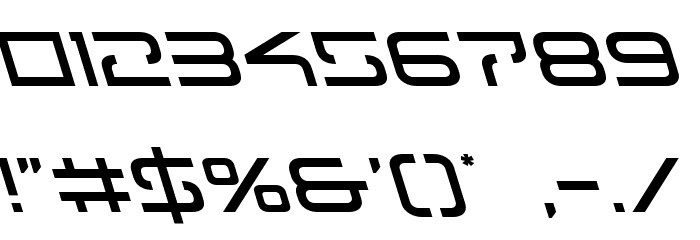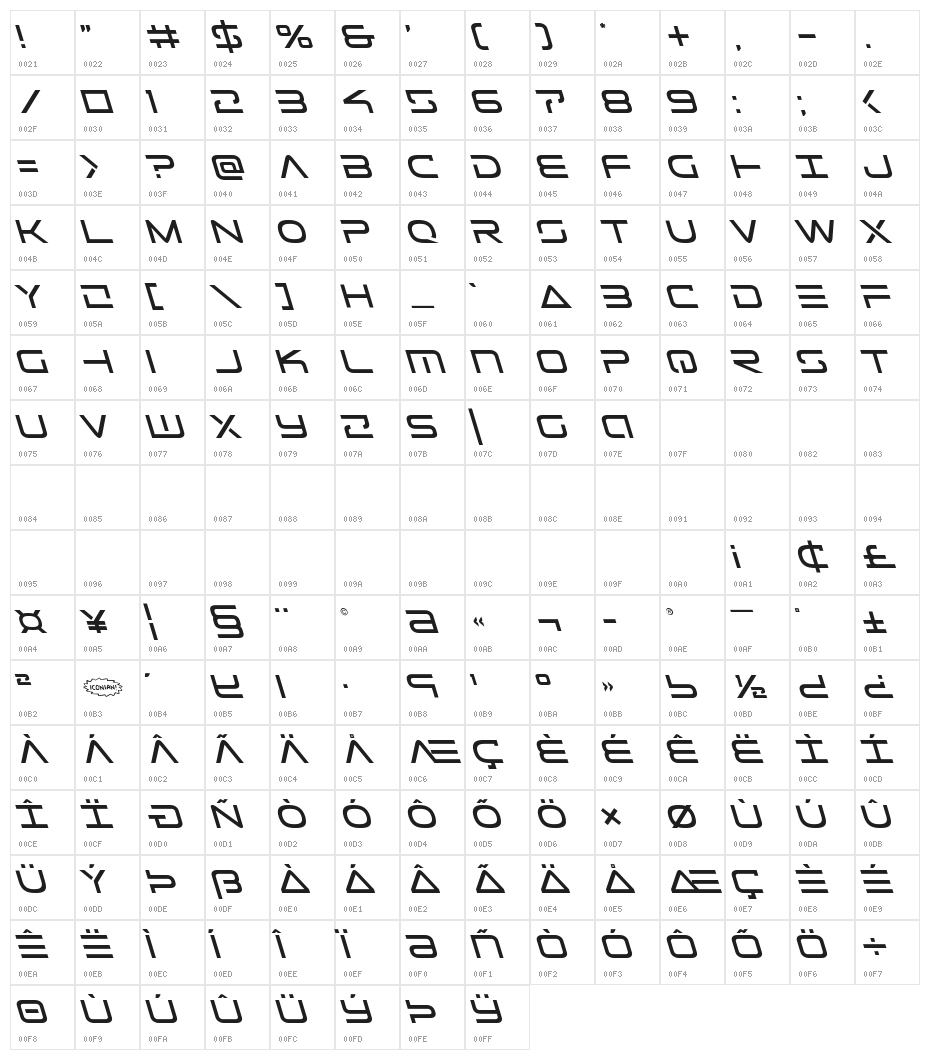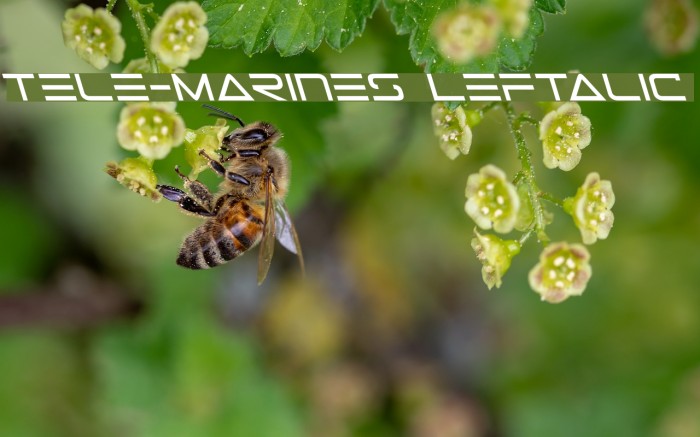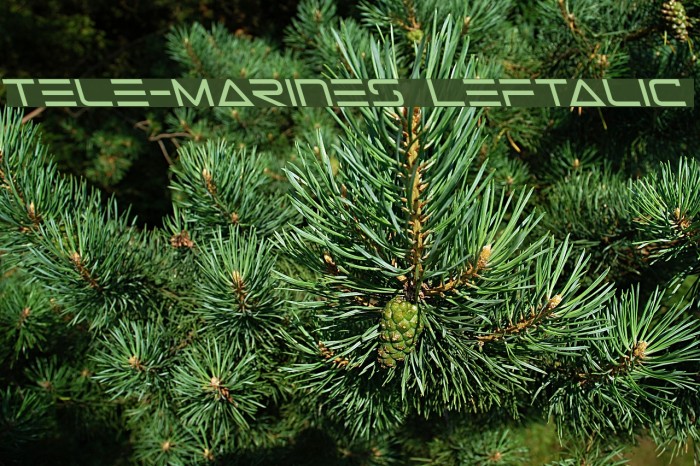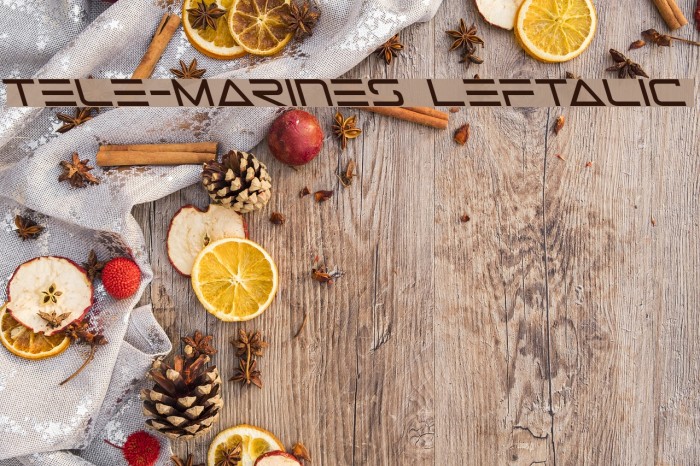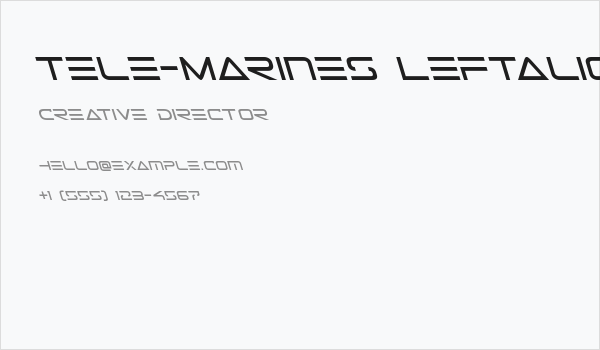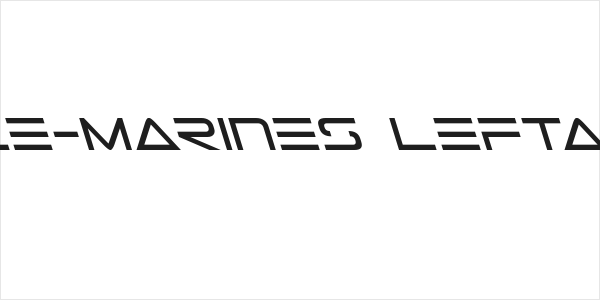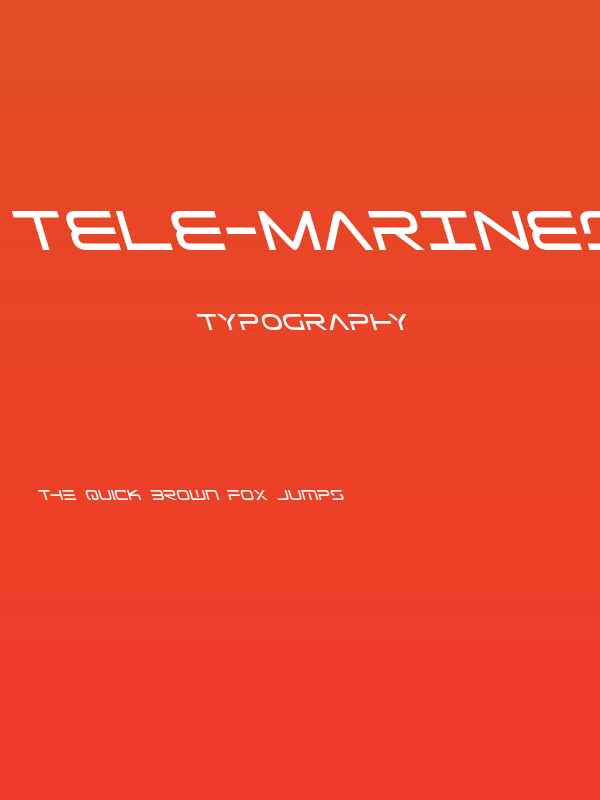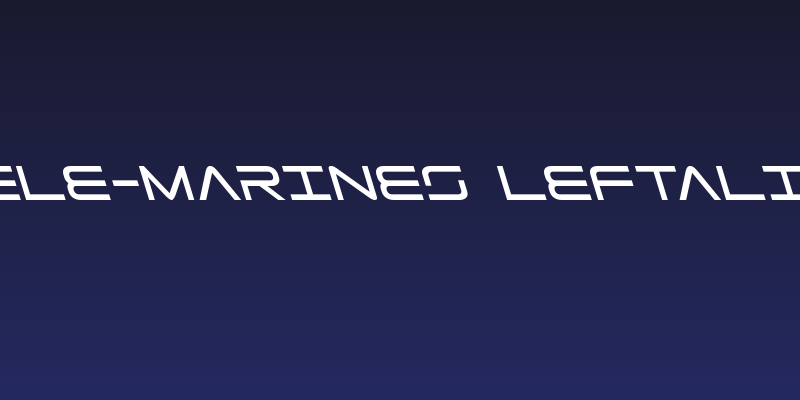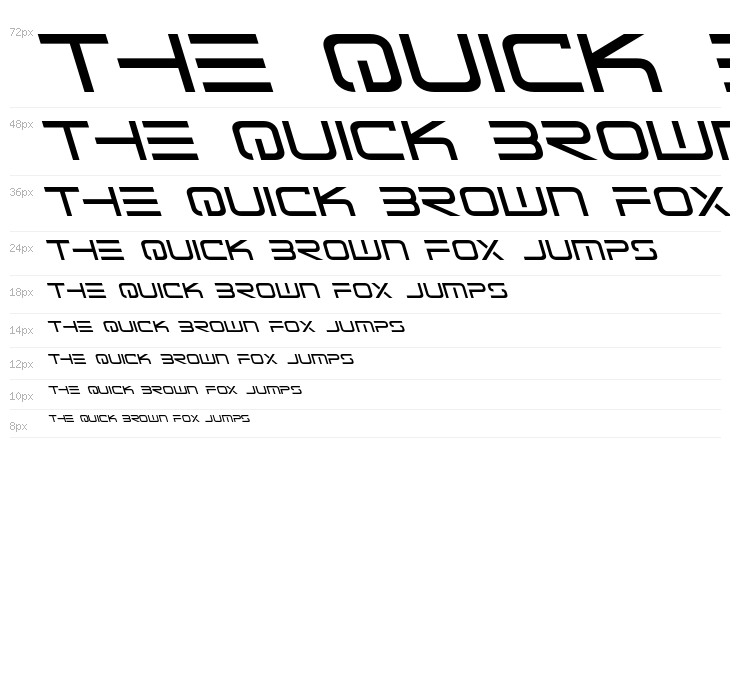
Tele-Marines Leftalic Font
Tele-Marines Leftalic Description
This font features a futuristic and angular design, characterized by sharp edges and geometric shapes. The uppercase letters have a distinct slant, giving a sense of motion and speed. The lowercase letters maintain the angular theme, with consistent line thickness throughout. Numbers and special characters are designed to match the overall aesthetic, with unique and bold shapes. The font's style is reminiscent of science fiction and technology, making it ideal for projects that require a modern and edgy look.
Proposed ProjectsIdeal for sci-fi themed projects, technology branding, video game titles, and modern advertisements.